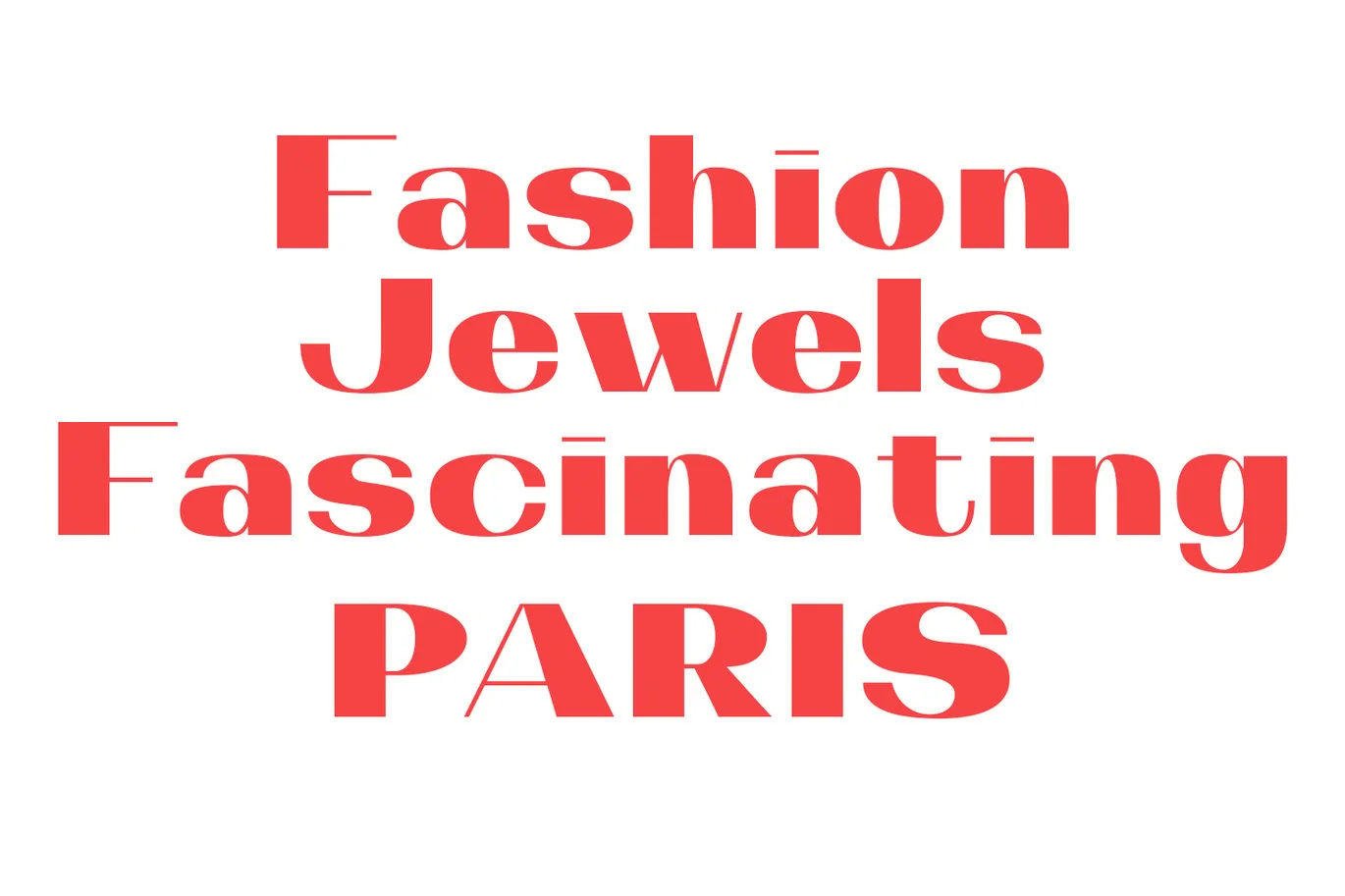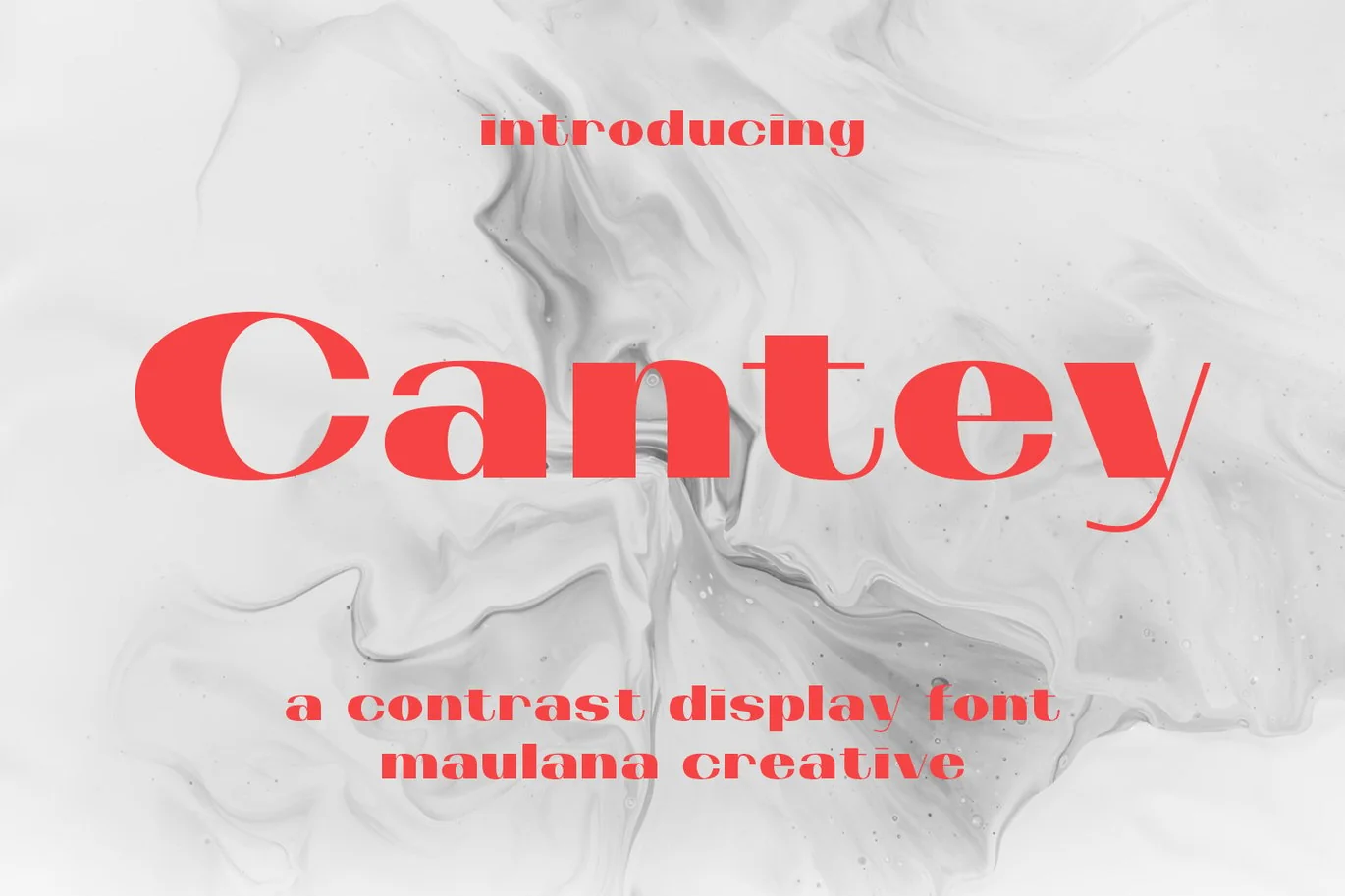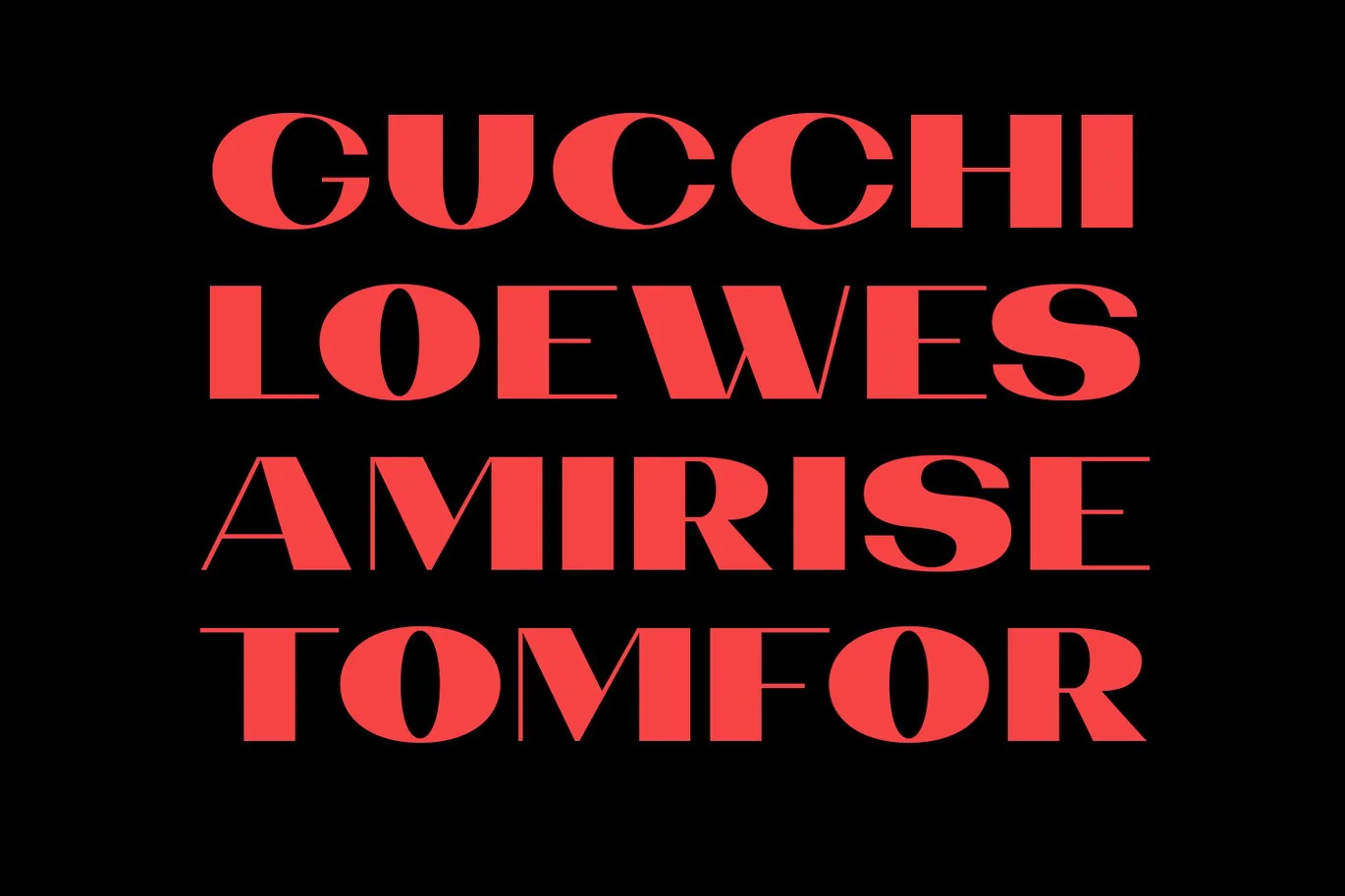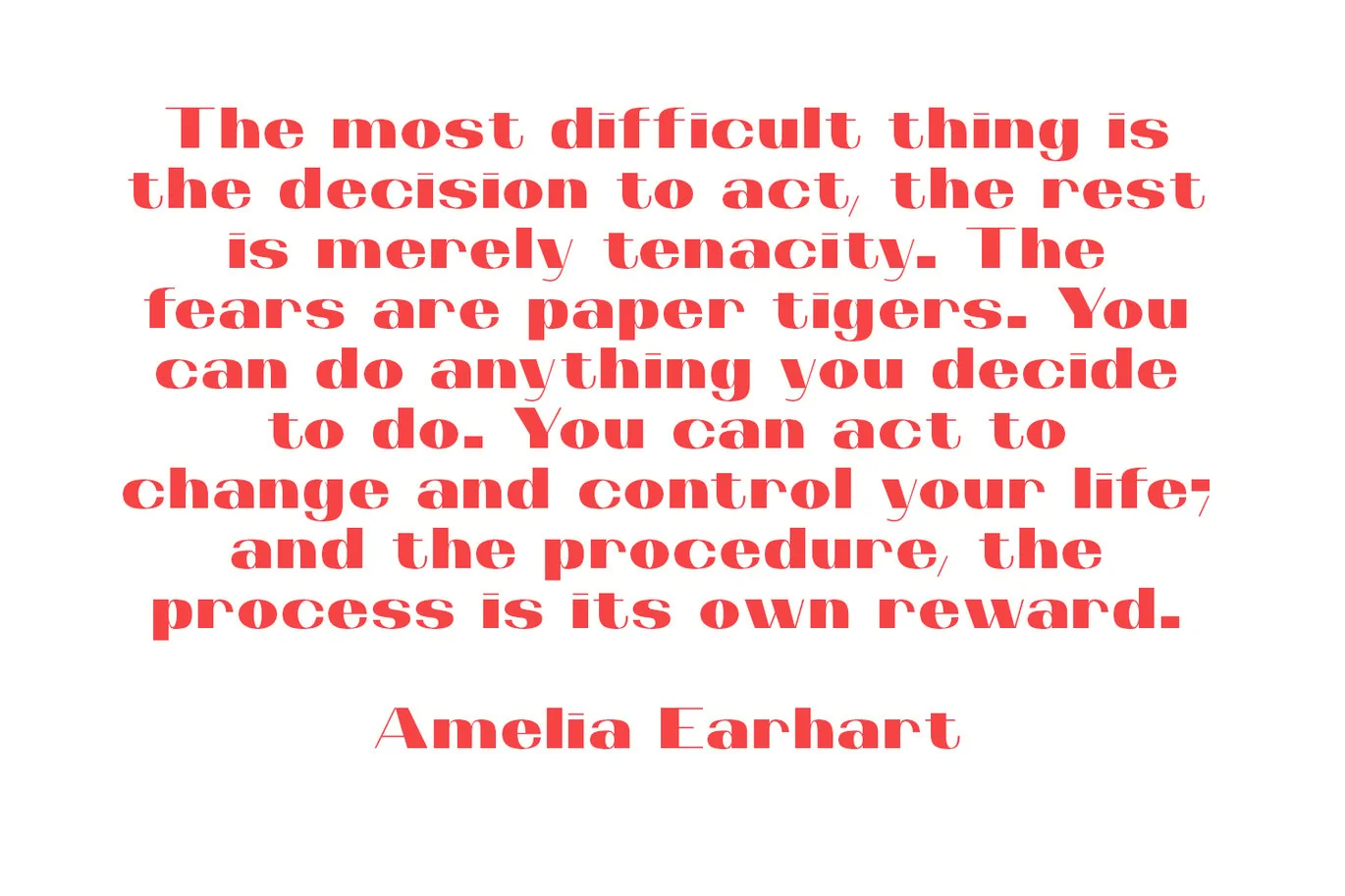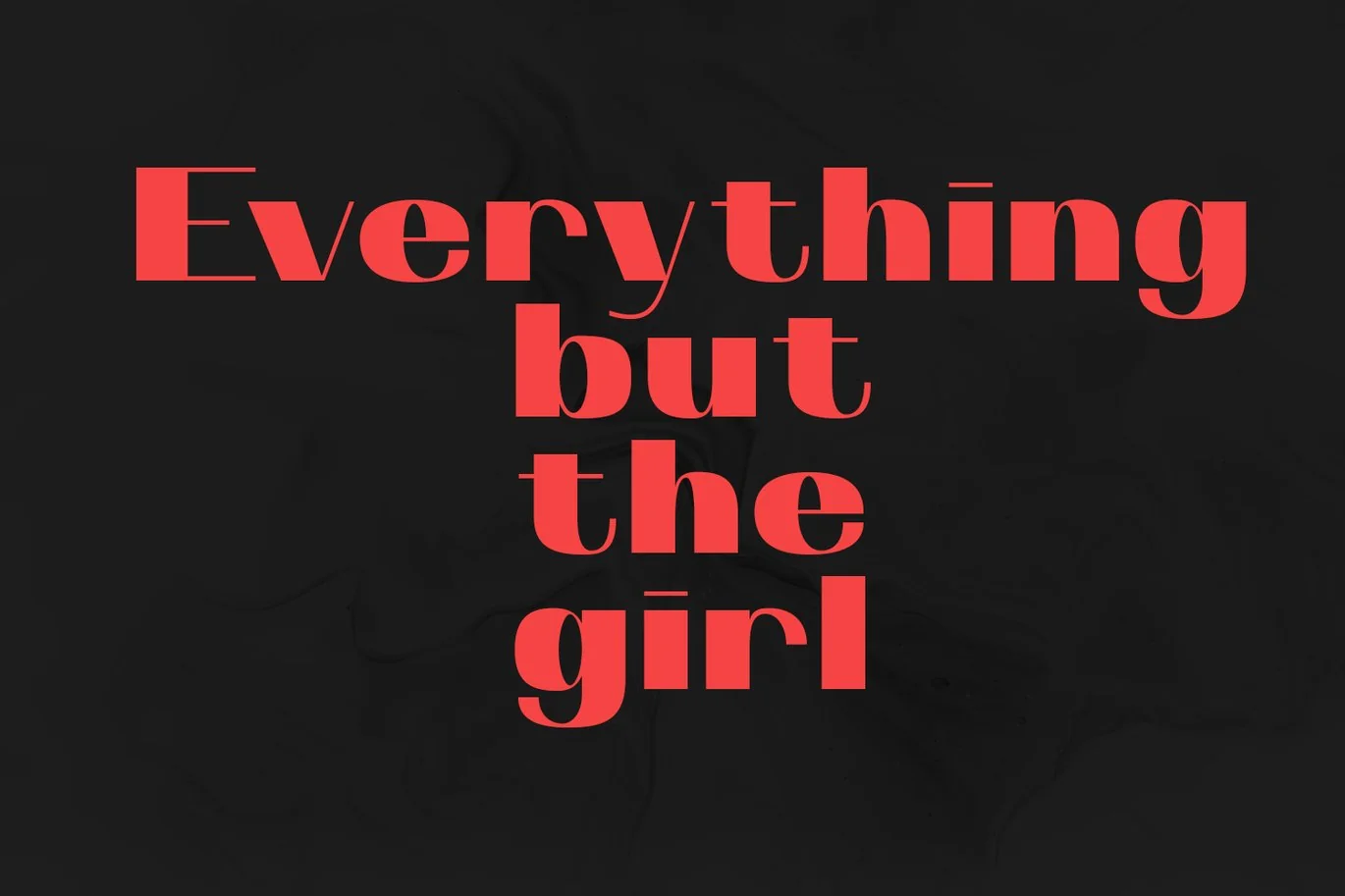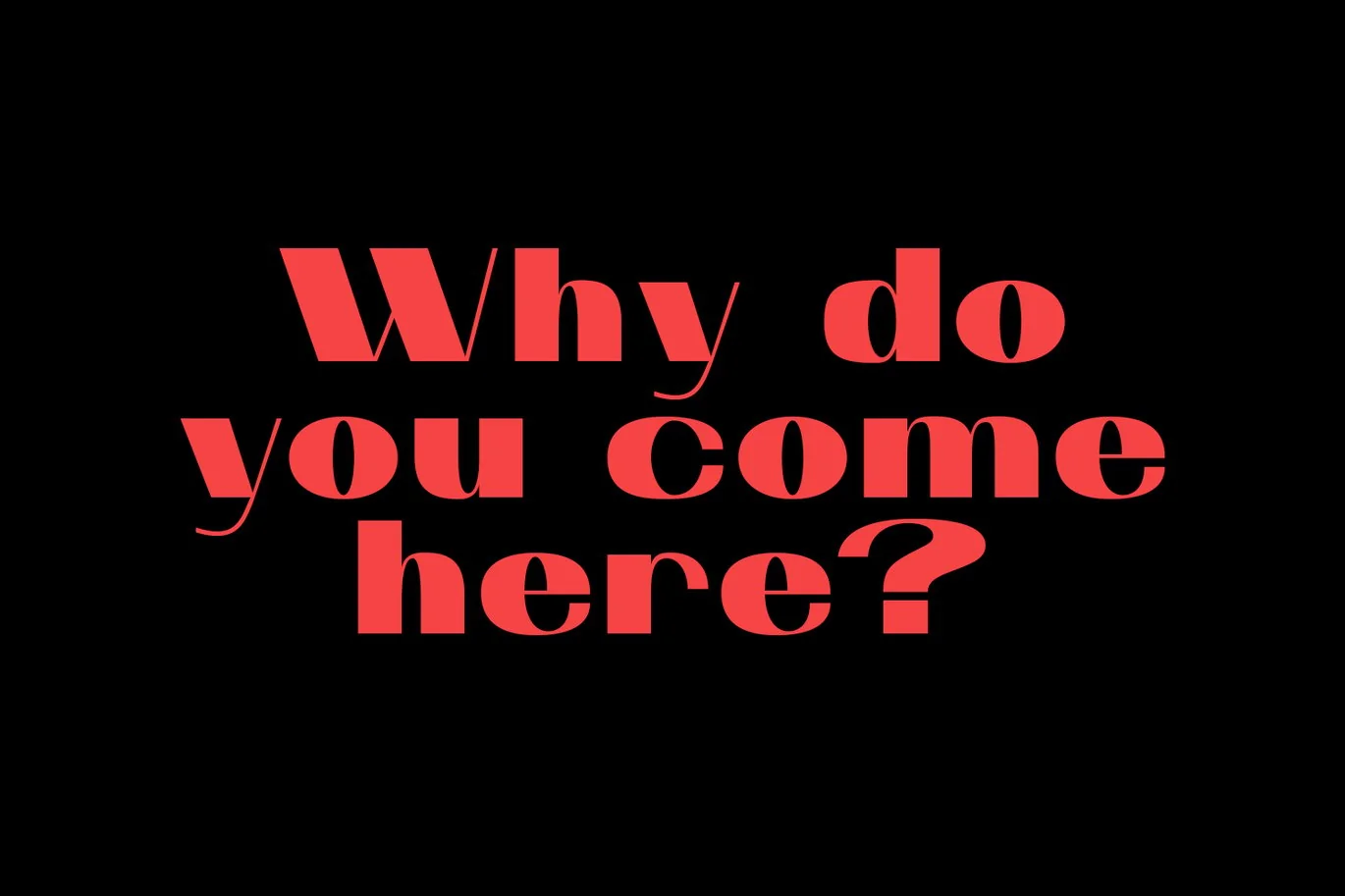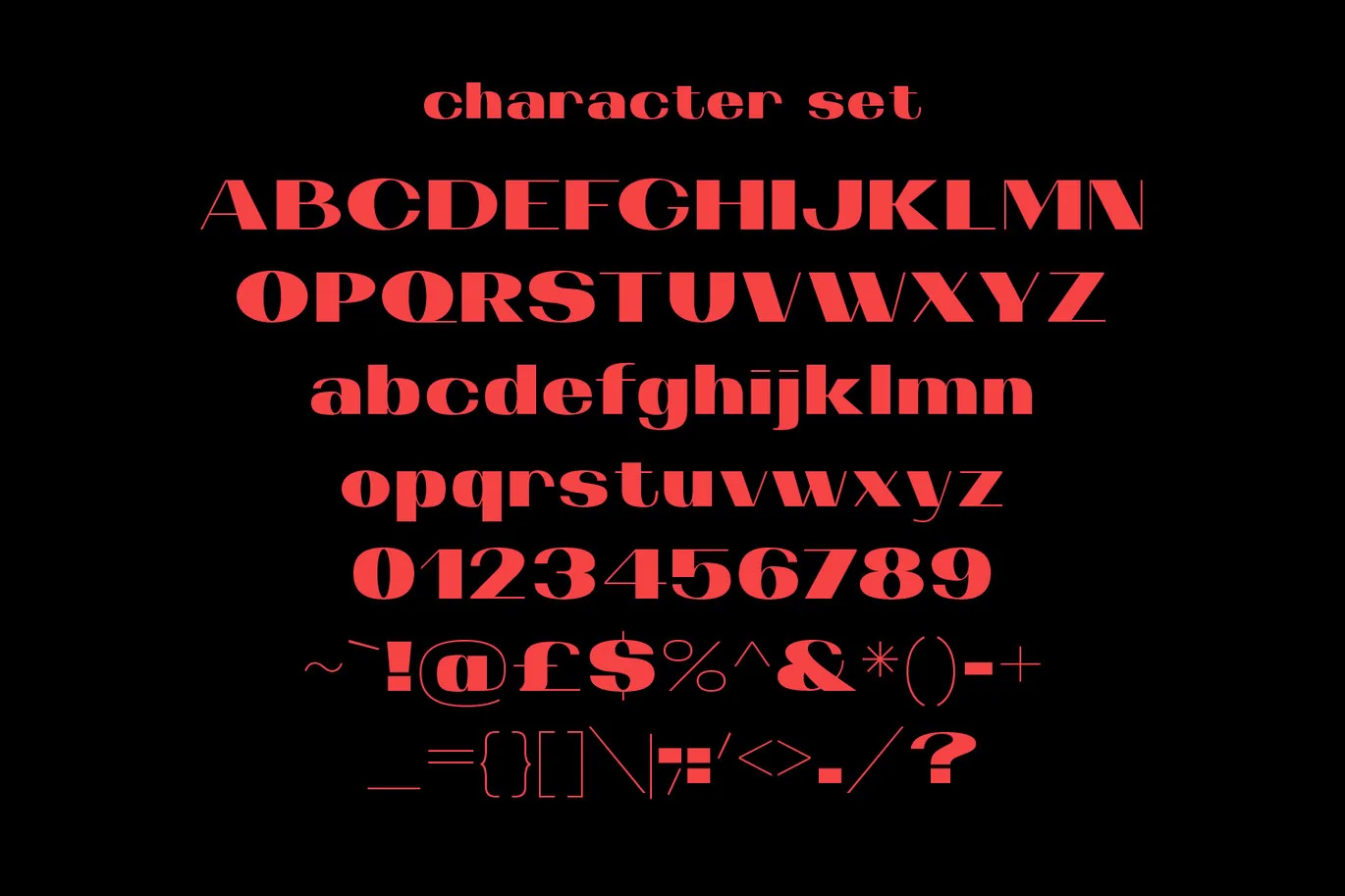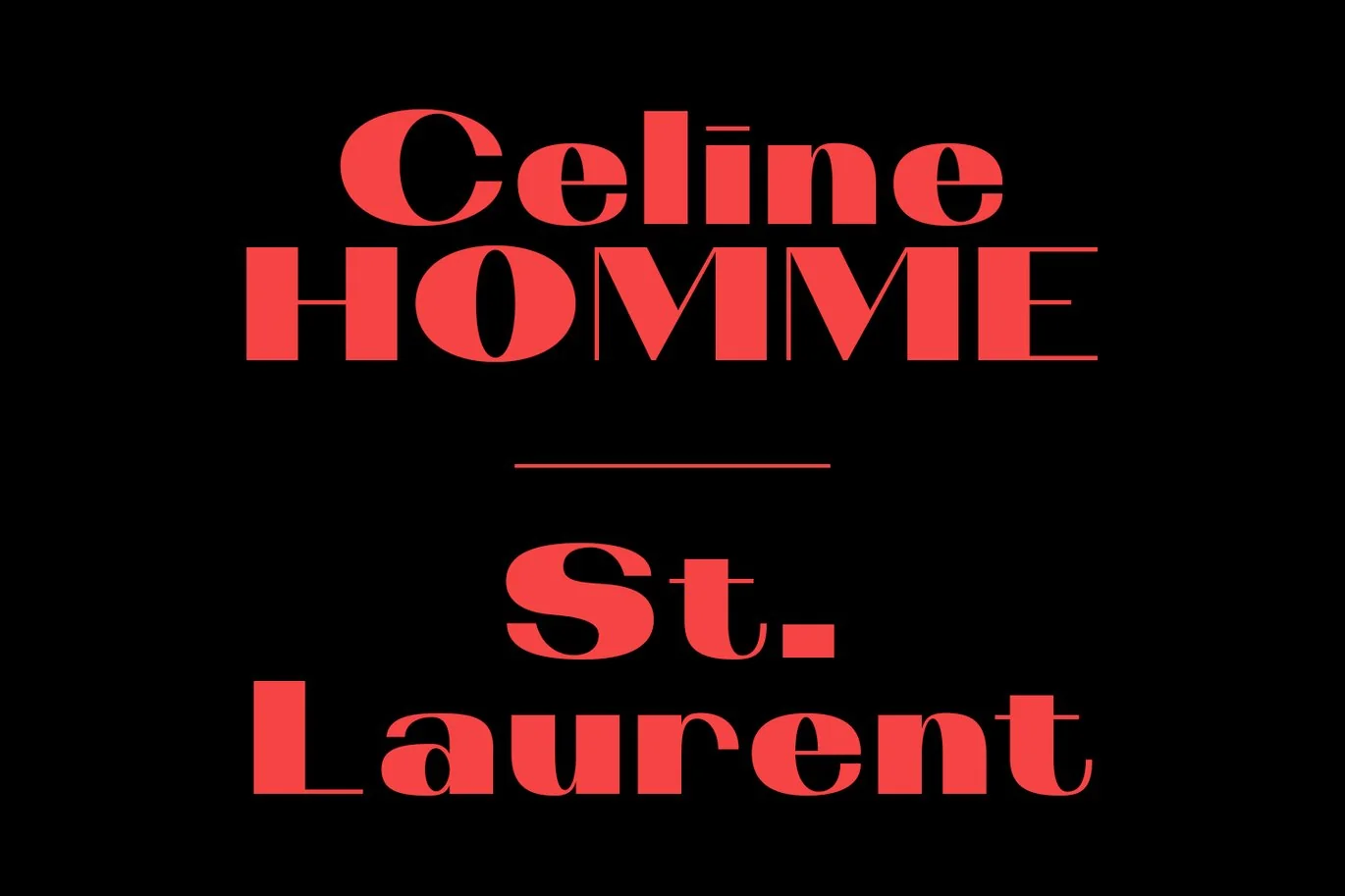
Cantey Contrast Display Font
Cantey is a wide sans display font. With high contrast stroke, fun character with a bit of ligatures and alternates. To give you an extra creative work. Cantey font support multilingual more than 100+ language. This font is good for logo design, Social media, Movie Titles, Books Titles, a short text even a long text letter and good for your secondary text font with script or serif. Make a stunning work with Cantey font.